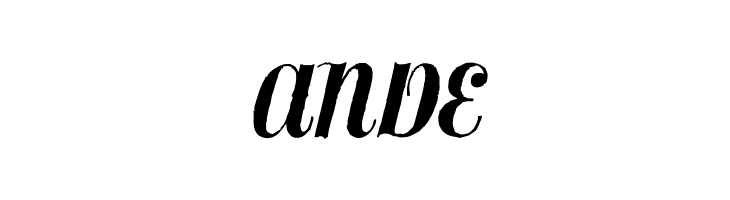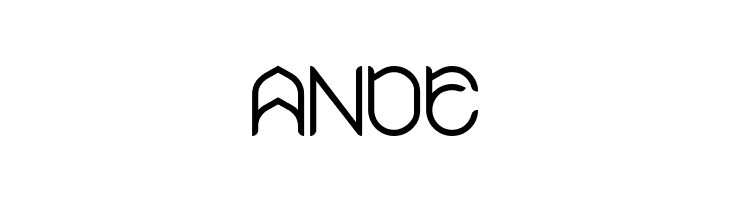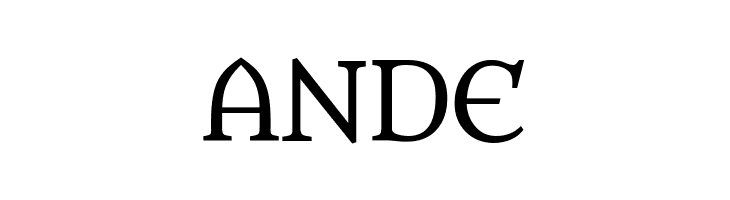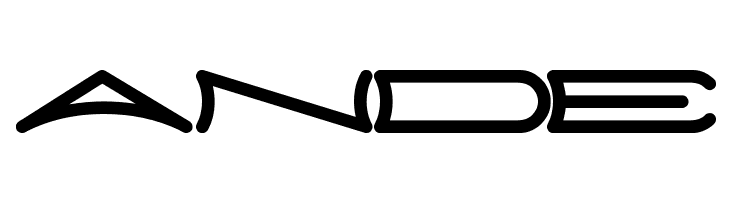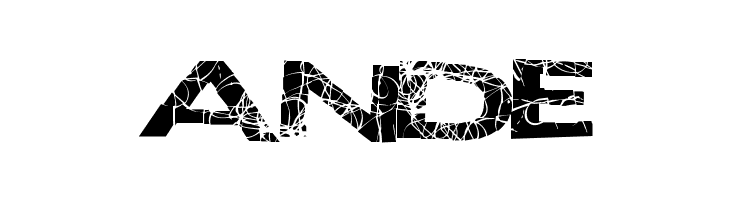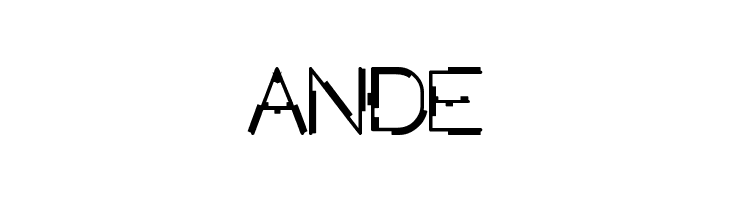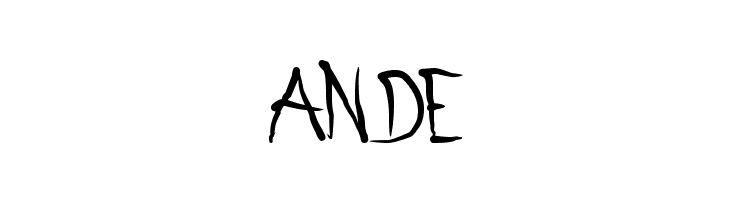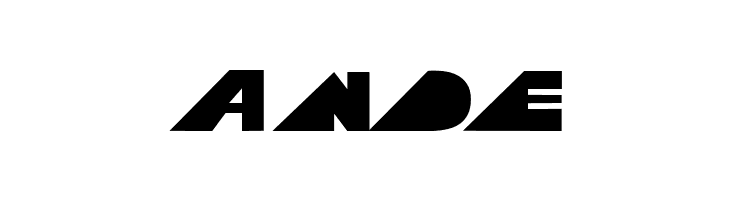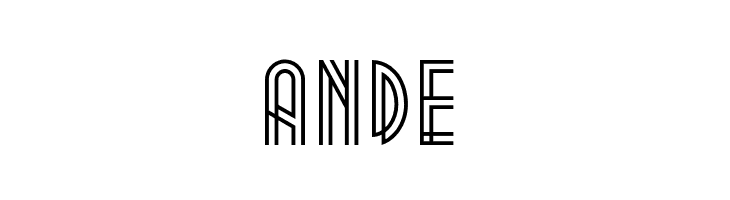
A chaotic, jagged font with a distressed, aggressive style.
A bold, distressed font with a cracked texture for a rebellious look.
A bold, edgy font with sharp angles and a hand-drawn aesthetic.
A jagged, edgy font with thorn-like strokes, perfect for intense and rebellious designs.
A hand-drawn, artistic font with irregular, brush-like strokes.
A serif font with a blend of classic elegance and modern flair.
A futuristic and sleek font with elongated, curved letterforms.
A futuristic, sleek font with elongated, geometric letterforms.
A sleek, geometric font with a modern, art deco-inspired design.
A sleek, geometric font with elongated characters and high contrast.
A bold, angular font with a dynamic, geometric style.
A geometric Art Deco font with clean lines and a vintage 1920s aesthetic.
A bold, geometric font with a modern and industrial aesthetic.
A bold, decorative font with playful curves and high contrast, perfect for vintage-inspired designs.
A bold, decorative font with elegant flourishes and high contrast.
A modern, geometric font with bold, rounded characters.
A modern, geometric font with rounded edges and consistent stroke width.
A jagged, edgy font with angular, irregular edges for a dynamic look.
A jagged, edgy font with angular, irregular edges for a bold look.
A dynamic and expressive script font with fluid, cursive strokes.
A playful, hand-drawn font with smooth curves and dynamic strokes.
A bold, expressive handwritten font with thick, uneven strokes and a dynamic appearance.
A whimsical, curly font with playful loops and flourishes.
A playful and whimsical script font with flowing, interconnected letters.